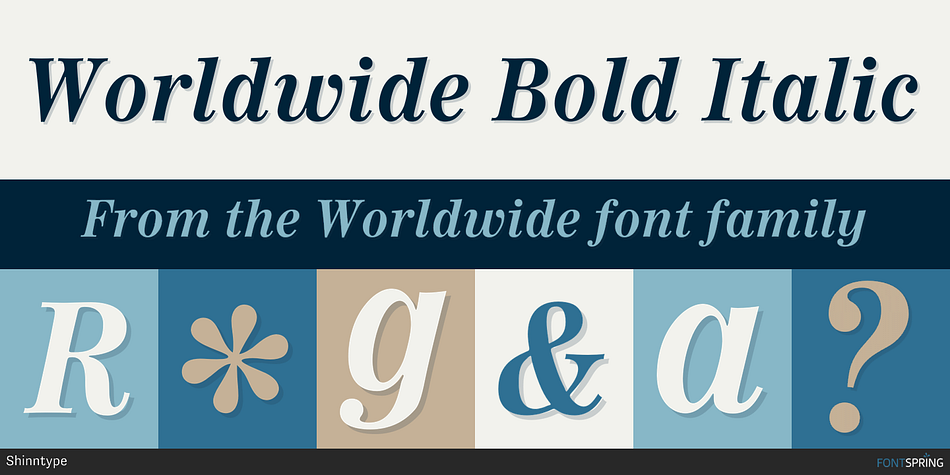
Worldwide Bold Italic
Designed by Nick Shinn, Worldwide is a serif font family. This typeface has four styles and was published by Shinntype.
Proven in dozens of magazines and newspapers around the globe since 1999, Worldwide is a semi-condensed, large x-height Century revival designed to elegantly fit large amounts of text into compact spaces while retaining maximum readability and apparent size.
Proven in dozens of magazines and newspapers around the globe since 1999, Worldwide is a semi-condensed, large x-height Century revival designed to elegantly fit large amounts of text into compact spaces while retaining maximum readability and apparent size. Its Regular roman is loaded with OpenType features—small caps, ten figure styles, ligatures, fractions, superscript and subscript.